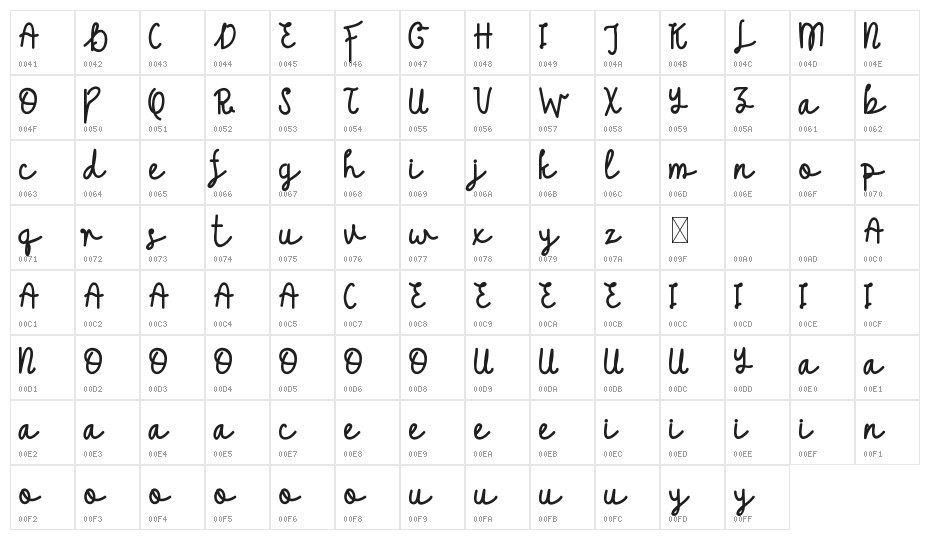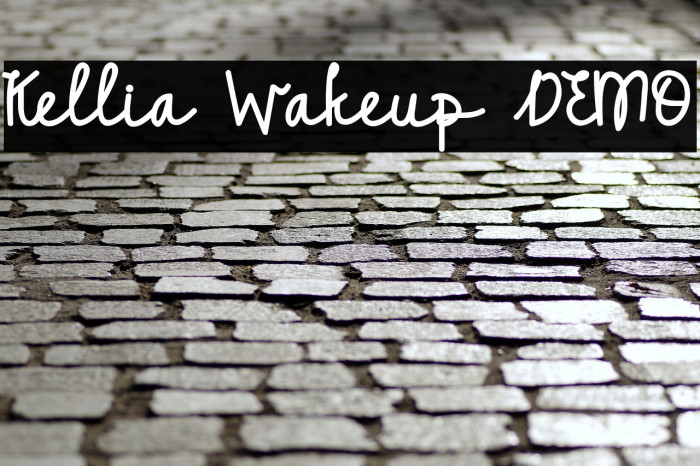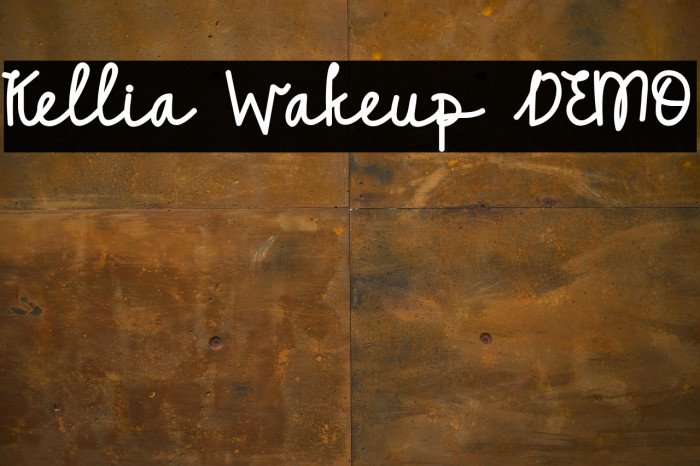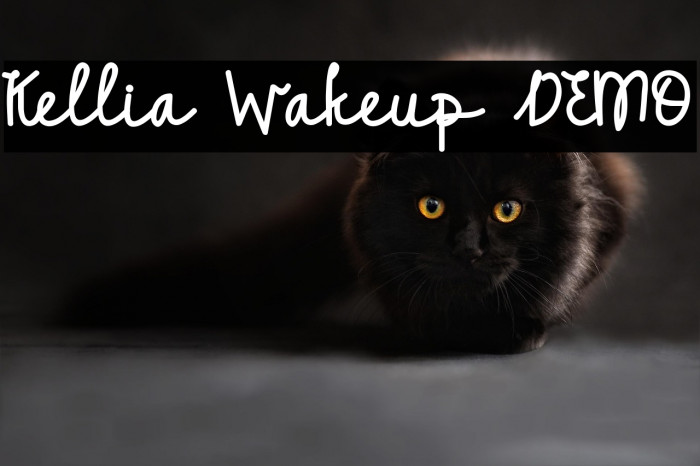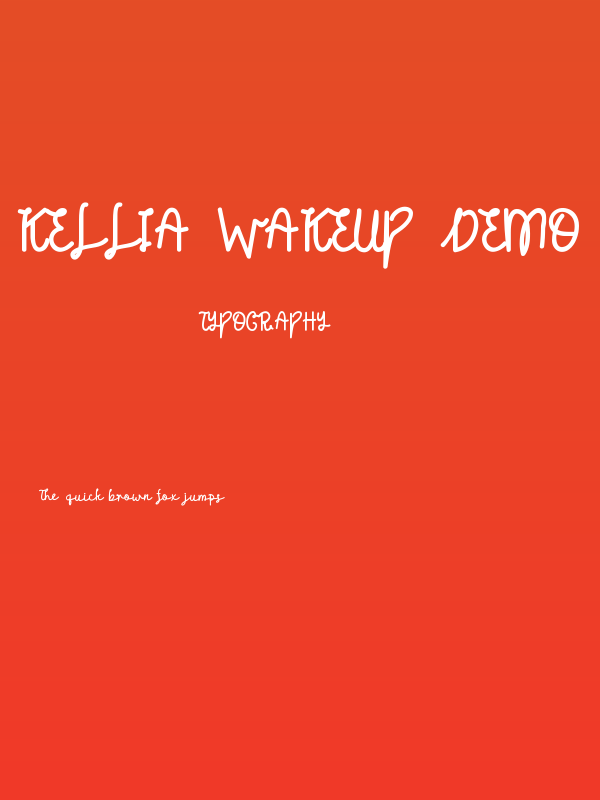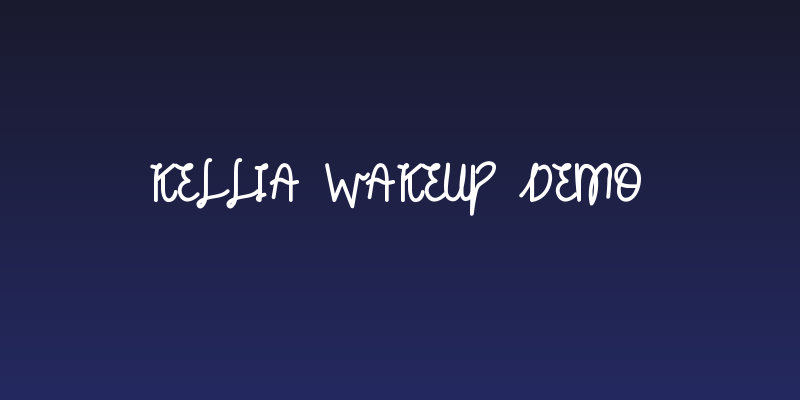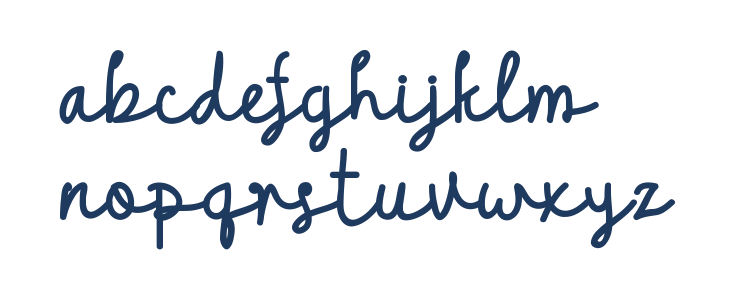
Kellia Wakeup DEMO Font
Kellia Wakeup DEMO Description
This font features a playful and casual handwritten style, characterized by its fluid and connected letterforms. The strokes are smooth and rounded, giving it a friendly and approachable appearance. The uppercase and lowercase letters maintain a consistent flow, with a slight slant that adds to its informal charm. The numbers and special characters are designed to match the overall aesthetic, ensuring a cohesive look across all text elements. This font's unique personality makes it suitable for creative and informal projects.